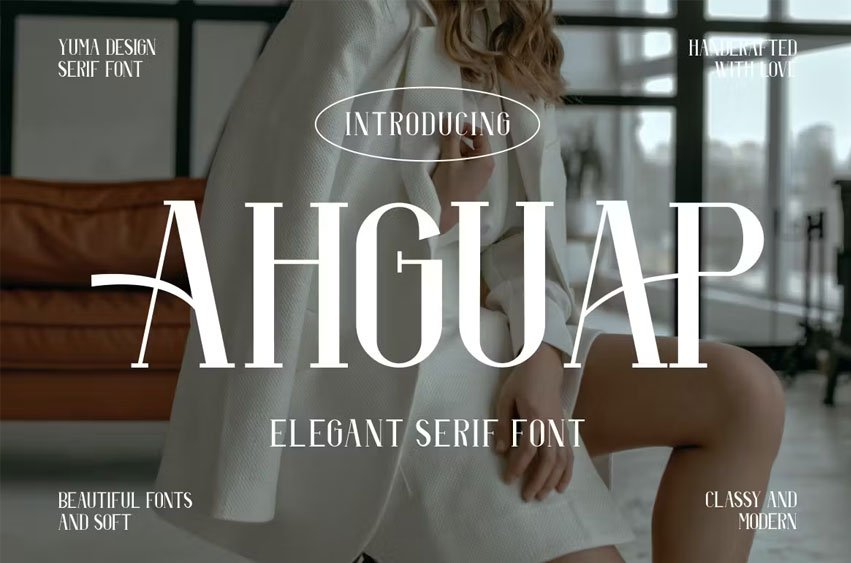
Ahguap Font is an elegant, modern font. It’s really beautiful to use on invitations such as greeting cards, business cards, quotes, posters, and many more!